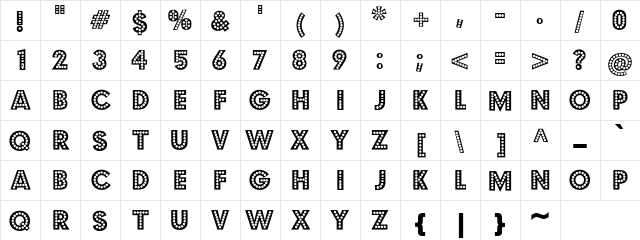
Budmo Jiggler Regular
Foundry: Larabie Fonts
Design Context for Budmo Jiggler
Budmo Jiggler is a composed and adaptable typeface that performs quietly and consistently across a wide range of design contexts.
Who designed the Budmo Jiggler Regular font?